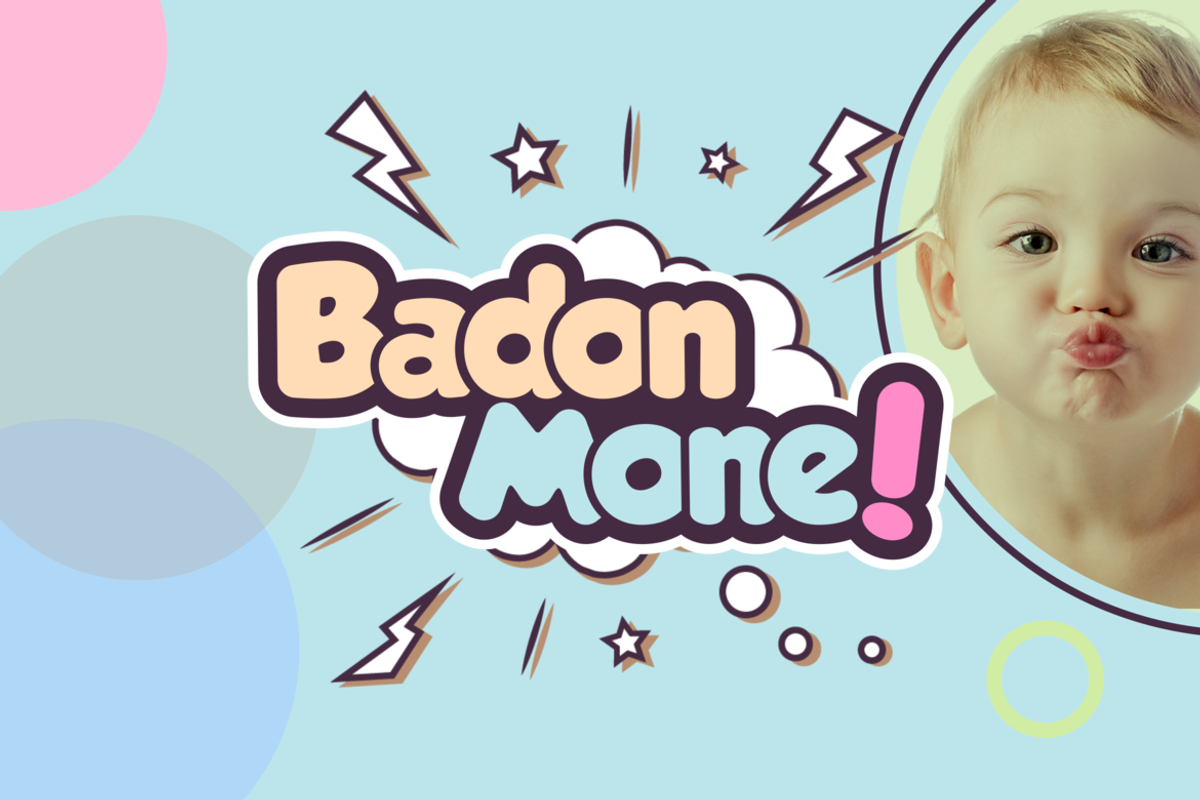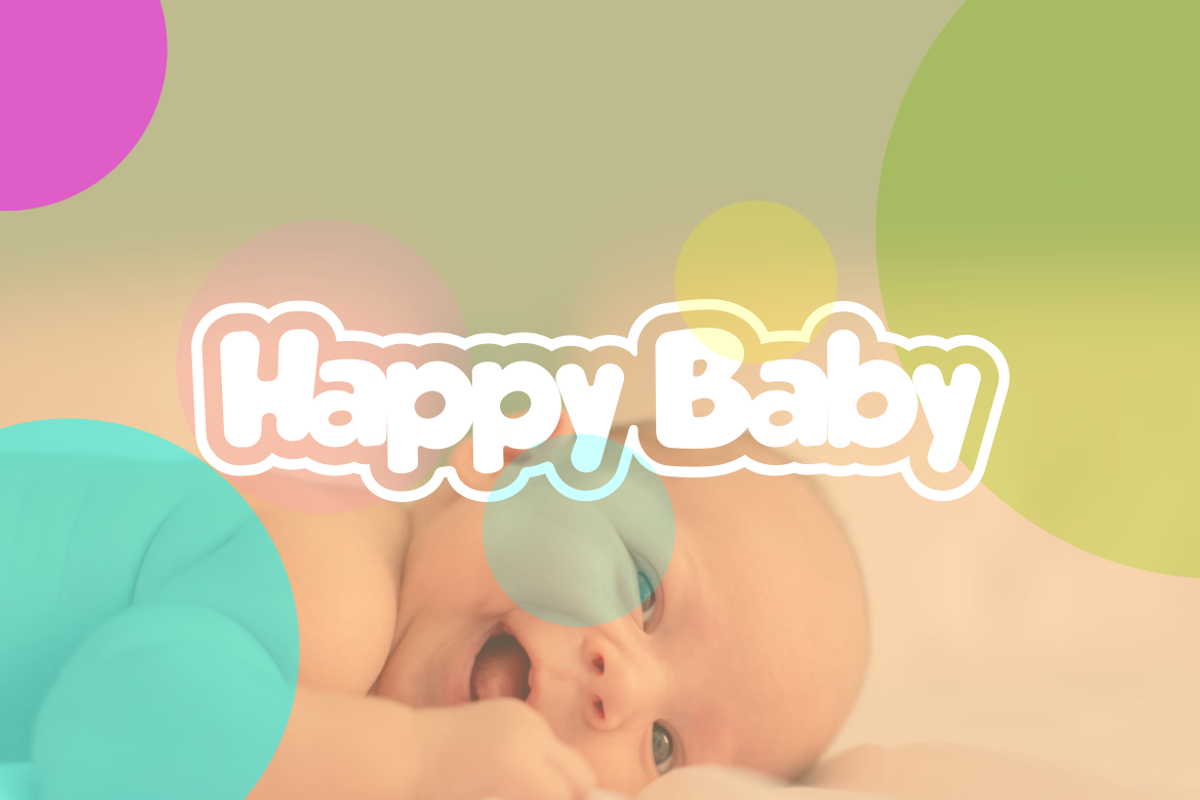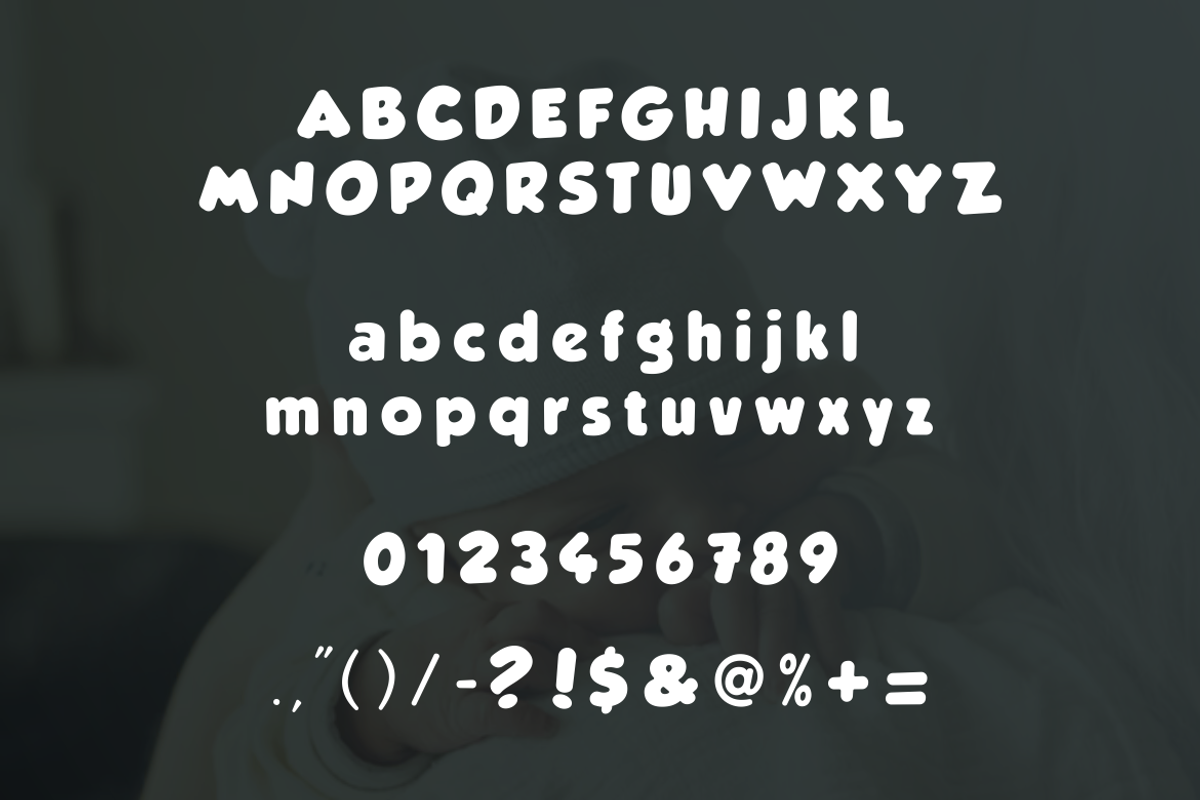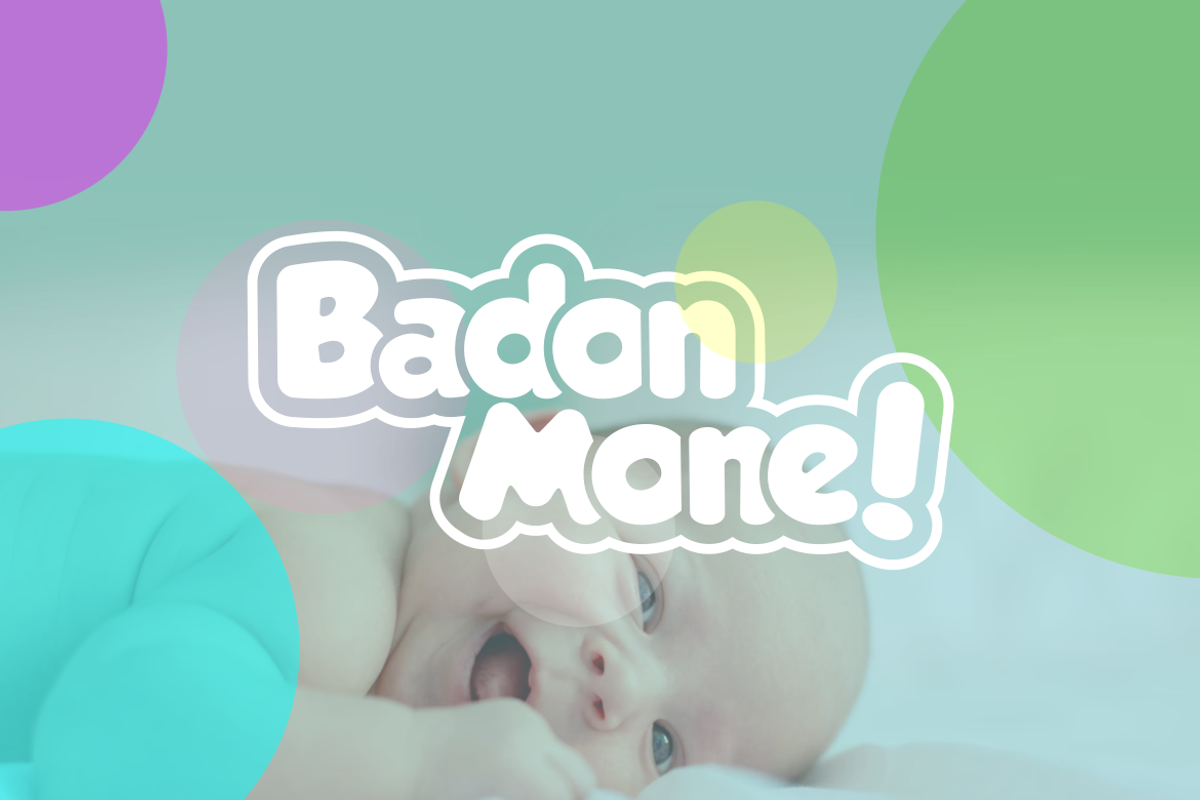
Badon Mone
Introducing our new product Badon Mone Font - Modern Font
Badon Mone Font - Modern Font is a bold and authentic display font. The font is suitable for any branding project like logo, t-shirt printing, esport, and many more. outstanding in a wide range of contexts.